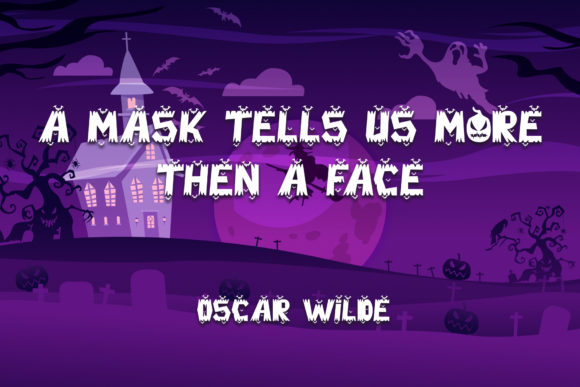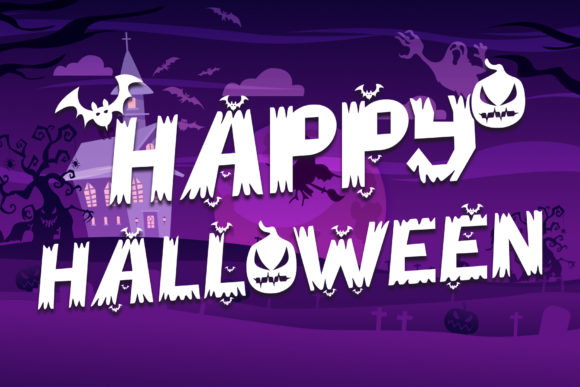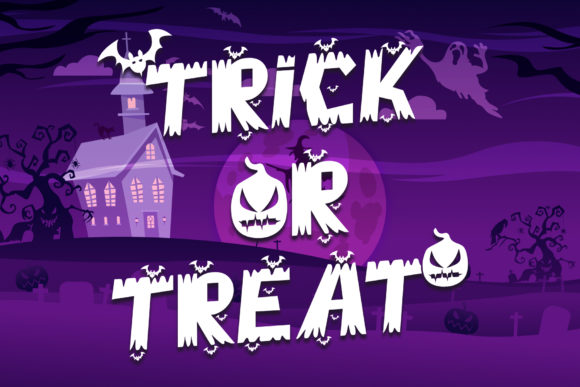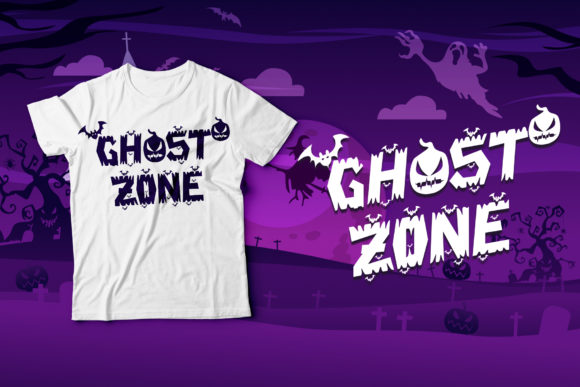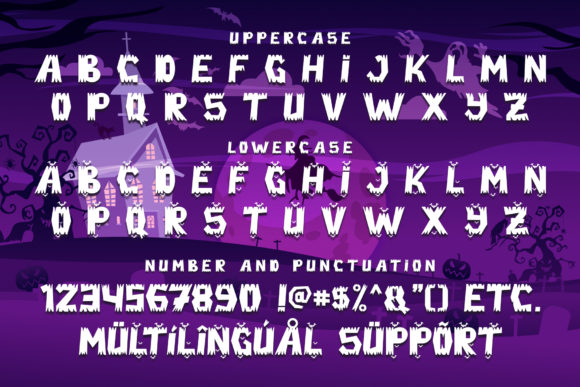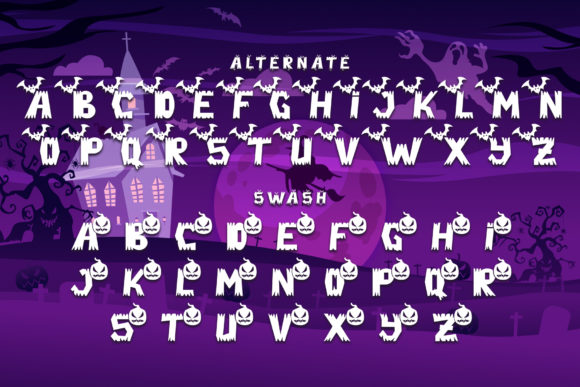
Unleash Your Creativity with Ghost Zone Font: A Spooky Decorative Delight
Are you a designer, crafter, or DIY enthusiast looking for a unique and captivating font to add a touch of spookiness to your creations? Look no further than the Ghost Zone Font, a fun, quirky, and spooky decorative font that’s sure to cast a spell on your audience. In this article, we’ll dive into the features and benefits of Ghost Zone Font, and explore how you can use it to elevate your designs and crafts.
What is Ghost Zone Font?
Ghost Zone Font is a decorative font that’s perfect for creating eye-catching and eerie designs. This font is designed to add a touch of spookiness to your creations, making it ideal for Halloween-themed projects, horror-inspired art, and other spooky endeavors. With its unique and quirky design, Ghost Zone Font is sure to stand out from the crowd and leave a lasting impression on your audience.
One of the standout features of Ghost Zone Font is its PUA (Private Use Area) encoding. This means that you can access all of the glyphs and swashes with ease, giving you complete creative control over your designs. With PUA encoding, you can effortlessly navigate through the font’s various characters, symbols, and ornaments, allowing you to create complex and visually appealing designs.
Features and Benefits of Ghost Zone Font
So, what makes Ghost Zone Font so special? Here are just a few of its key features and benefits:
- Unique and quirky design: Ghost Zone Font boasts a one-of-a-kind design that’s sure to capture the attention of your audience.
- PUA encoded: Easy access to glyphs and swashes, giving you complete creative control.
- Spooky and decorative: Perfect for Halloween-themed projects, horror-inspired art, and other spooky endeavors.
How to Use Ghost Zone Font in Your Designs
Now that we’ve covered the features and benefits of Ghost Zone Font, let’s explore how you can use it in your designs. Here are a few ideas to get you started:
- Halloween-themed designs: Use Ghost Zone Font to create spooky and eye-catching designs for Halloween-themed projects, such as invitations, posters, and social media graphics.
- Horror-inspired art: Add a touch of eeriness to your horror-inspired art with Ghost Zone Font, perfect for creating creepy and atmospheric designs.
- Crafting and DIY projects: Use Ghost Zone Font to add a personal touch to your crafting and DIY projects, such as handmade cards, gift tags, and decorations.
Tips and Tricks for Getting the Most Out of Ghost Zone Font
To help you get the most out of Ghost Zone Font, here are a few tips and tricks:
- Experiment with different colors and textures: Add depth and interest to your designs by experimenting with different colors and textures.
- Combine with other fonts: Pair Ghost Zone Font with other fonts to create unique and visually appealing designs.
- Use glyphs and swashes: Take advantage of the font’s PUA encoding to access glyphs and swashes, adding an extra layer of creativity to your designs.
| Font Name | Ghost Zone Font |
| Author | Sakha Design |